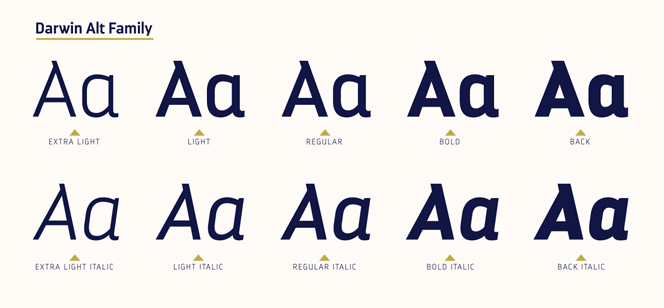
Darwin font
Darwin font family is an original blending of grotesque, geometric and humanistic styles. Described as sans-serif face, Darwin’s look could vary from contemporary to classic & vintage, depending on the environment where it is exposed. Generally it is perfect for editorial design with its diversity of 10 weights + 10 italics, but actually its use spreads out in many other designs like food packaging, wine & spirits labels, book covers. When combined with right illustration, banners or frames, Darwin could be easily used for t-shirt designs, posters and because of its originality, some of you might find it good for logos. Increased x-height and smooth geometry are helping a lot for enhancing the legibility of the whole family. Darwin font is excellent choice if you decide to use it for e-books, mobile apps as well as for print publications – even in small sizes, poor contrast or low resolution, Darwin preserves its originality and what is more important – it’s easy to read. Using OpenType apps will unlock a lot of extra features like multilingual support, alternates, ligatures etc and you will actually have significantly more options to choose from when you use it.
Darwin font family is designed by Mendoza Vergara and published by Los Andes type foundry.